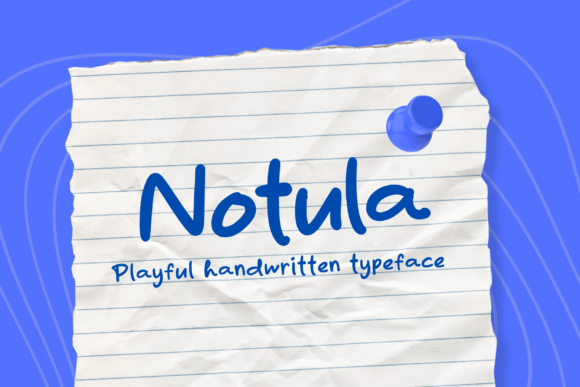
Welcome to the world of Notula Font, a captivating script font family that beckons you to explore the enchanting realm of expressive typography. Notula, meaning 'small note' in Latin, embodies the essence of intimate communication, inviting you to infuse your designs with a touch of personal flair.
Immerse yourself in the beauty of Notula's meticulously crafted glyphs, each stroke imbued with the charm of handwritten elegance. Experience the tactile sensation of gliding your fingers across the curves and flourishes that bring your words to life. Notula is a symphony of carefully balanced lines and delicate details, evoking a sense of nostalgia and romance.
With Notula, you hold the key to unlocking a world of creative possibilities. Its versatility knows no bounds, lending itself seamlessly to a myriad of design endeavors. Craft stunning posters that captivate your audience, leaving an indelible mark on their minds. Design eye-catching logos that exude personality and warmth, ensuring your brand stands out from the mundane. Create enchanting invitations and greeting cards that convey your heartfelt sentiments in a manner that resonates with your loved ones.
Notula's multilingual support opens up a boundless world of expression, allowing you to communicate your message across cultures and borders. Whether you're a seasoned designer seeking to elevate your projects or a creative enthusiast yearning for a touch of uniqueness, Notula is your trusted companion.
Embrace the allure of Notula, and embark on a creative journey where your imagination knows no limits. Let your designs bloom with the allure of handwritten charm, and captivate your audience with every stroke of your pen.